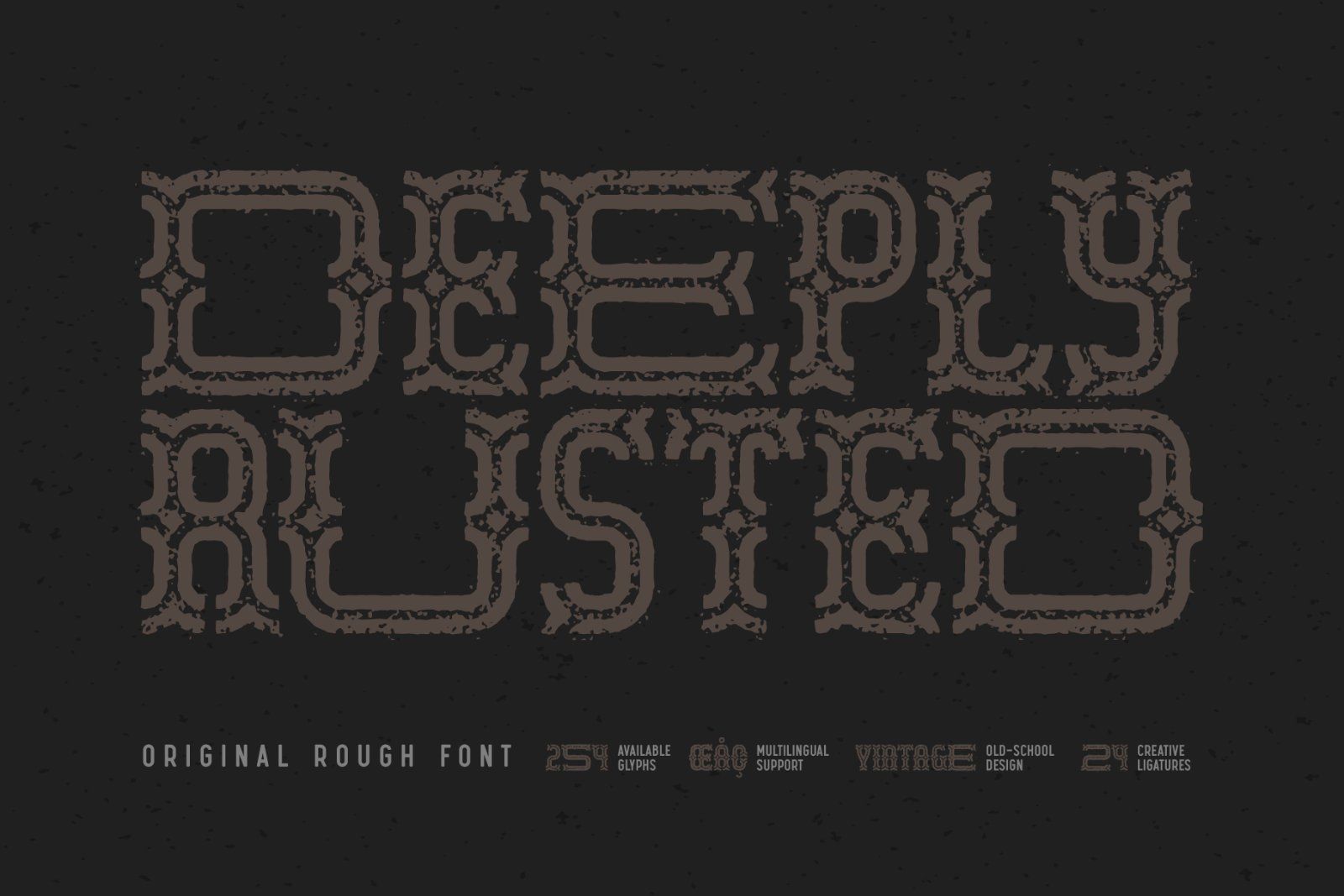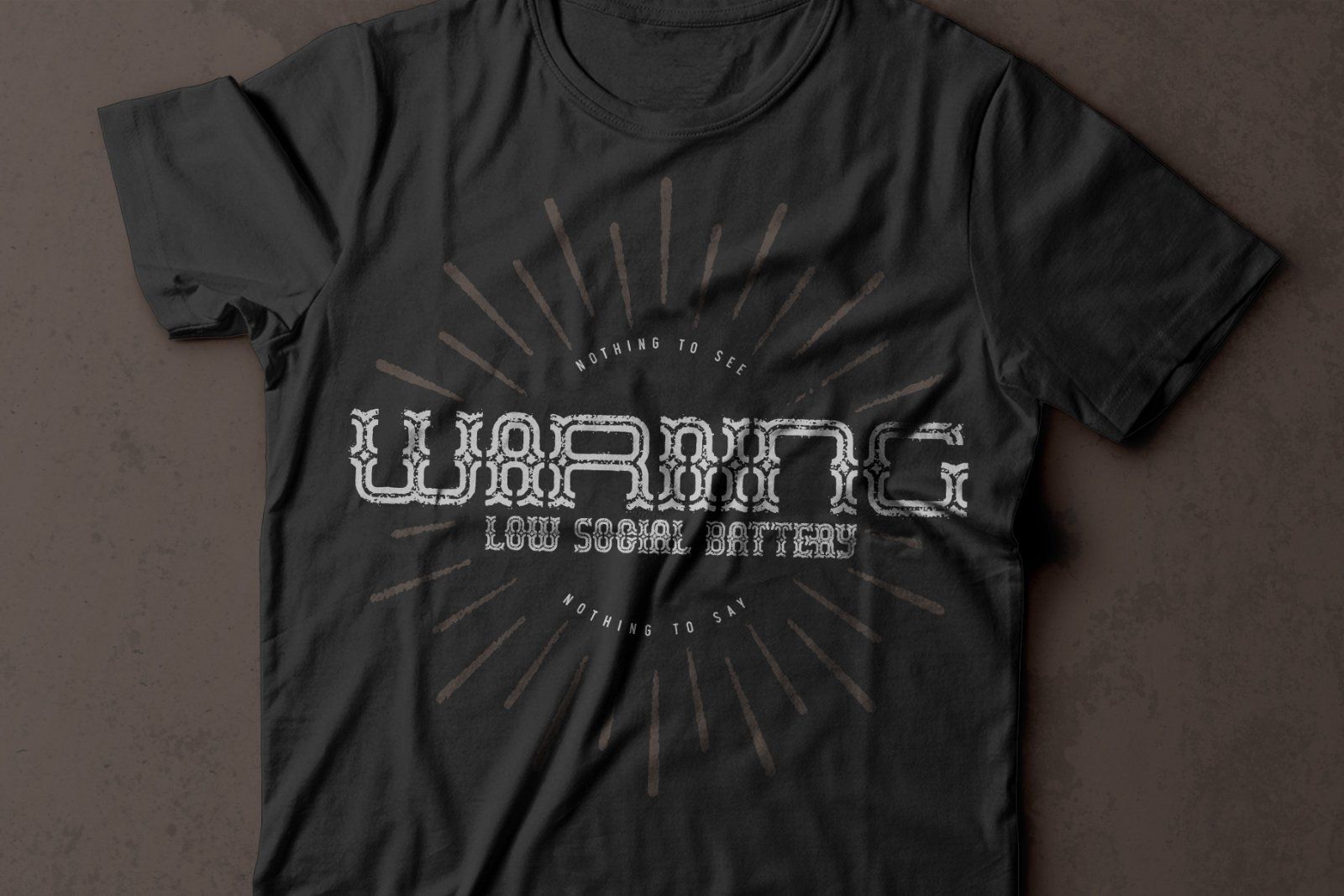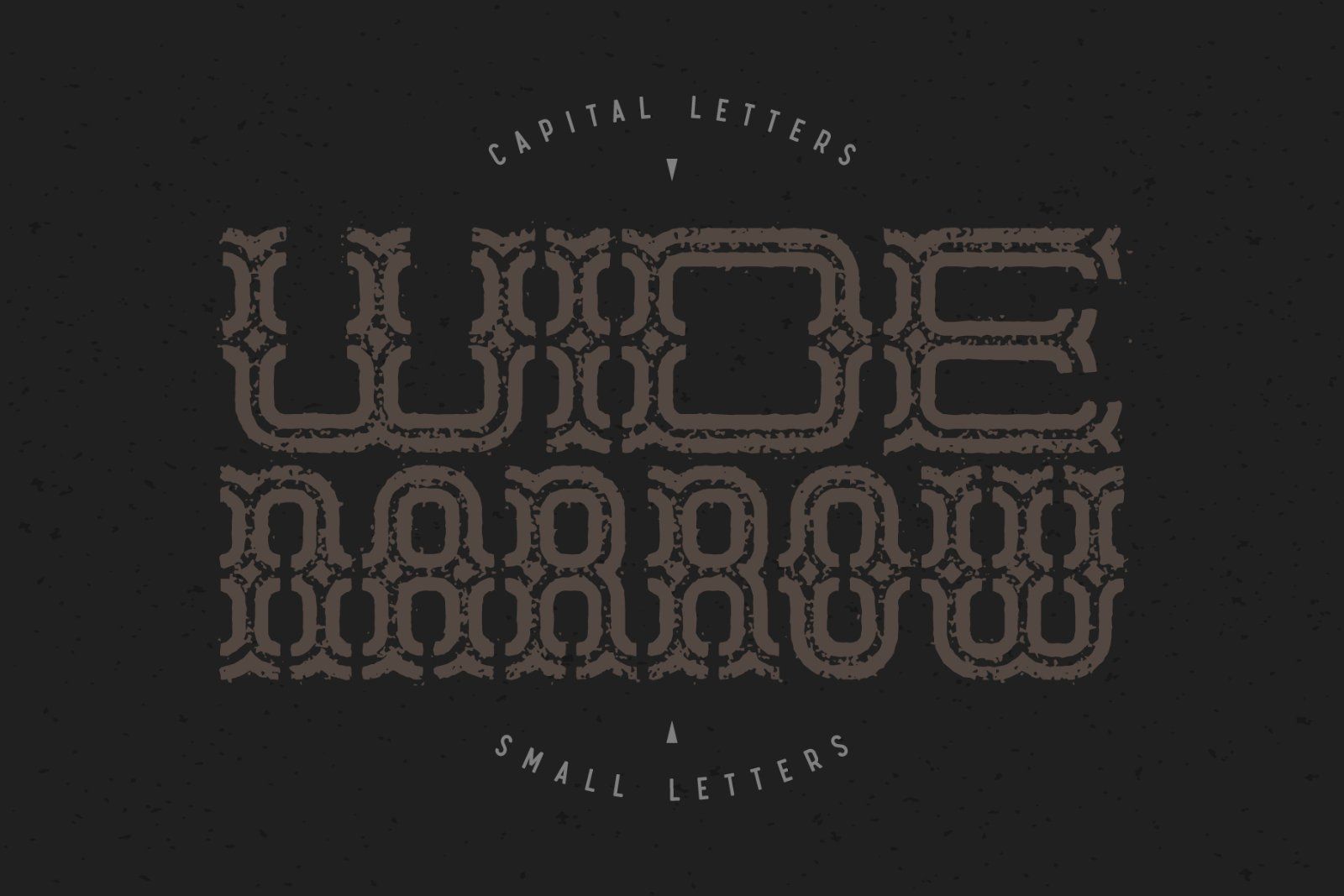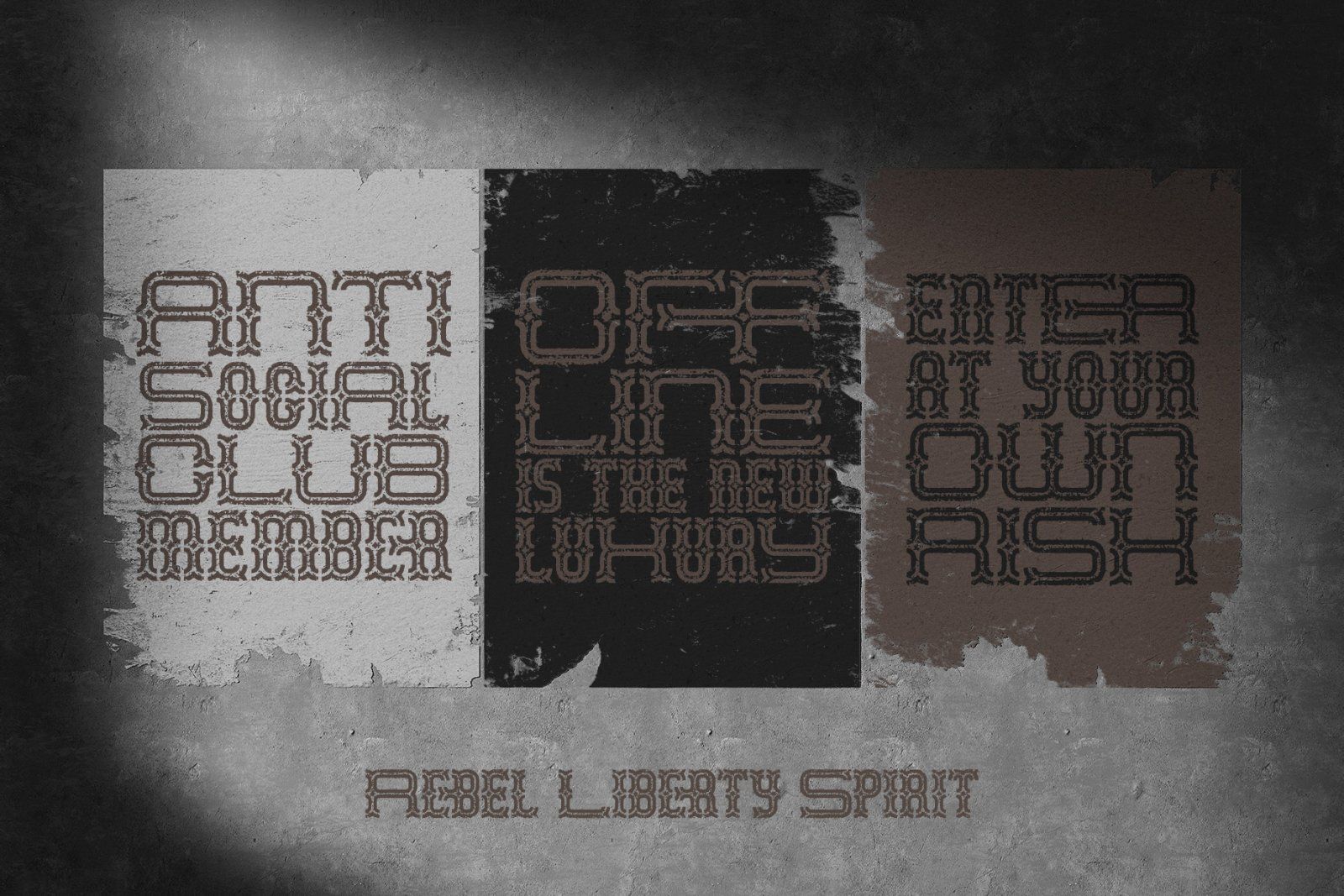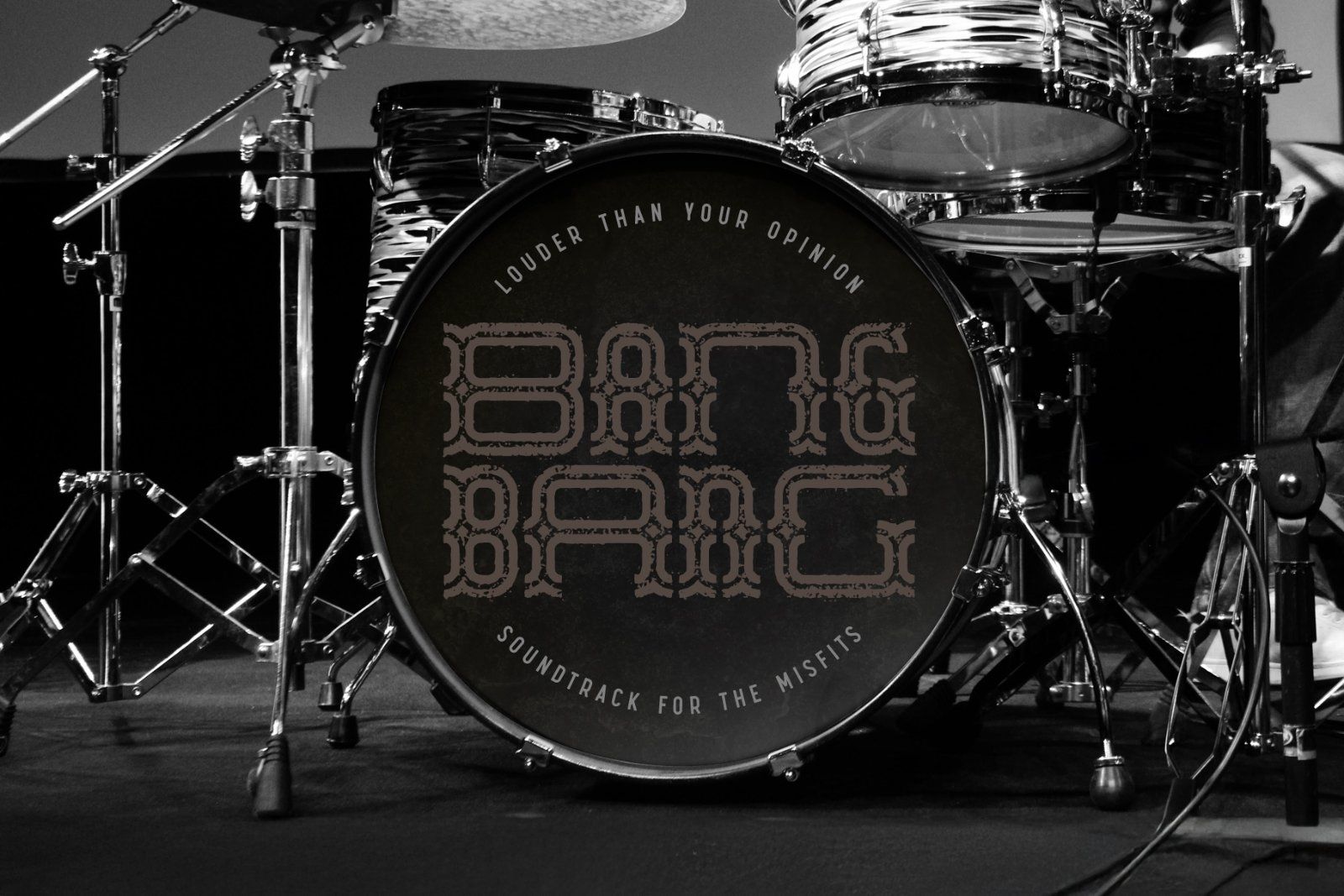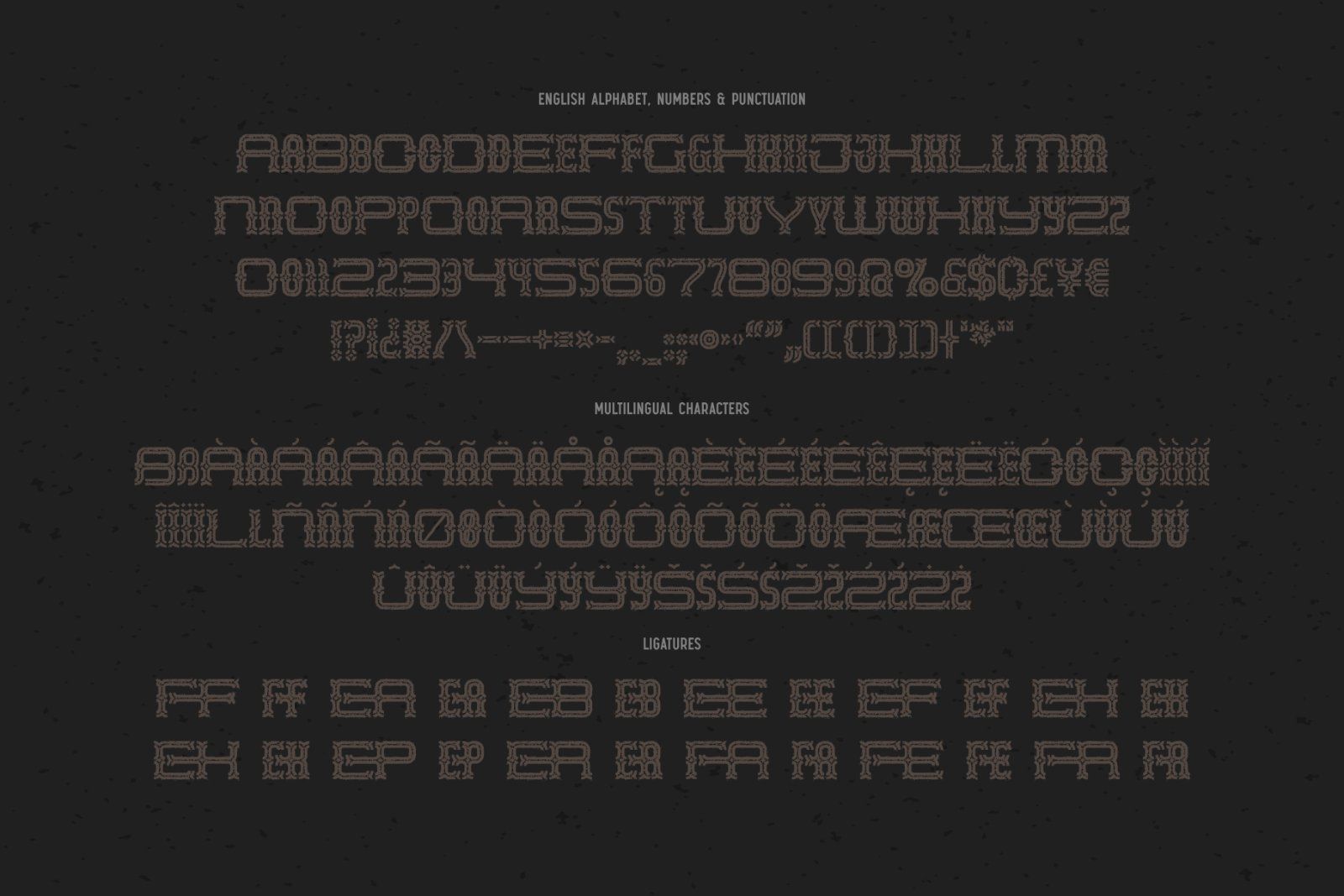
Hi! Introducing an original textured font named Deeply Rusted. This slab-serif font blends raw character with refined structure, featuring an expressive vintage style. It's perfect for old-school headlines, t-shirt prints, and designs that crave a touch of crafted imperfection.
This font features wide characters for capital letters and narrow characters for lowercase ones. Wide number characters can be accessed via the Stylistic Alternates OpenType feature. The Deeply Rusted font includes 245 characters with 24 ligatures and multilingual support — check the screenshot to view the full character set!